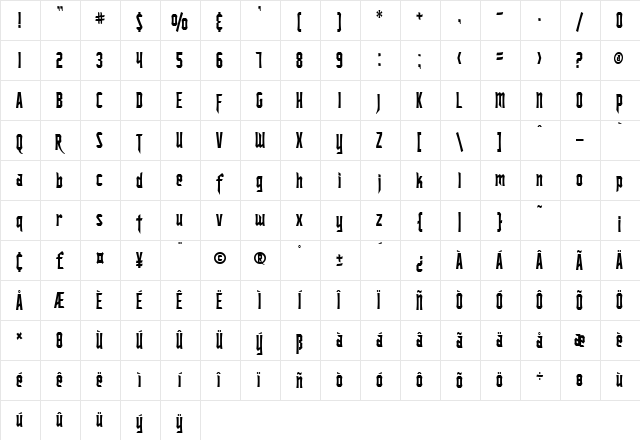
SF Ironsides Condensed Regular
Design Context for SF Ironsides Condensed Typeface
SF Ironsides Condensed is a composed and adaptable typeface that performs quietly and consistently across a wide range of design contexts. The condensed width makes it efficient for tight spaces without sacrificing legibility.
Pro Tip: Use SF Ironsides Condensed in both headline and body roles to test its range before committing to a single application.